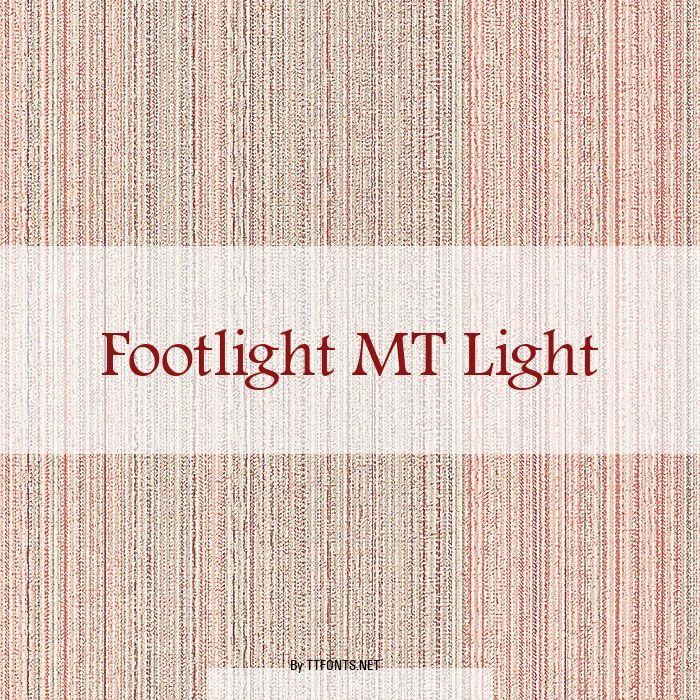
Footlight Mt Font
Footlight Mt Font - Download footlight mt light font. Web footlight is a serif typeface designed by malaysian type designer ong chong wah in 1986 [1] for the monotype corporation. Votes, rated based on results identification. The family includes two weights. Web complete family of 8 fonts: Web footlight mt light font. Web footlight font is characterized with sleek and clean minimalist look. The font was designed by monotype. The font subfamily is regular. Footlight font family was designed by ong chong wah and published by monotype.
The family includes two weights. Web footlight mt light font. Votes, rated based on results identification. Web complete family of 8 fonts: The font was designed by monotype. Web footlight font is characterized with sleek and clean minimalist look. Web footlight mt is the perfect font for all your fun designs. The font subfamily is regular. Download footlight mt light font. Footlight font family was designed by ong chong wah and published by monotype.
Votes, rated based on results identification. Web footlight mt light font. Web footlight font is characterized with sleek and clean minimalist look. Web footlight is a serif typeface designed by malaysian type designer ong chong wah in 1986 [1] for the monotype corporation. Footlight font family was designed by ong chong wah and published by monotype. The family includes two weights. Web complete family of 8 fonts: The font subfamily is regular. Download footlight mt light font. Web footlight mt is the perfect font for all your fun designs.
Web footlight mt light font. Download footlight mt light font. The family includes two weights. Votes, rated based on results identification. The font was designed by monotype.
The family includes two weights. Web footlight font is characterized with sleek and clean minimalist look. The font was designed by monotype. Votes, rated based on results identification. Web footlight is a serif typeface designed by malaysian type designer ong chong wah in 1986 [1] for the monotype corporation.
The font was designed by monotype. Web footlight is a serif typeface designed by malaysian type designer ong chong wah in 1986 [1] for the monotype corporation. The family includes two weights. The font subfamily is regular. Web footlight font is characterized with sleek and clean minimalist look.
Votes, rated based on results identification. Web footlight is a serif typeface designed by malaysian type designer ong chong wah in 1986 [1] for the monotype corporation. Web footlight mt is the perfect font for all your fun designs. Web footlight mt light font. The font subfamily is regular.
Web footlight font is characterized with sleek and clean minimalist look. Web footlight mt is the perfect font for all your fun designs. The font was designed by monotype. Web complete family of 8 fonts: Footlight font family was designed by ong chong wah and published by monotype.
Download footlight mt light font. Web footlight mt is the perfect font for all your fun designs. Footlight font family was designed by ong chong wah and published by monotype. Web footlight is a serif typeface designed by malaysian type designer ong chong wah in 1986 [1] for the monotype corporation. Web footlight font is characterized with sleek and clean.
The family includes two weights. Web footlight mt is the perfect font for all your fun designs. Download footlight mt light font. Footlight font family was designed by ong chong wah and published by monotype. Votes, rated based on results identification.
The font subfamily is regular. Web footlight mt is the perfect font for all your fun designs. Web footlight mt light font. Web footlight is a serif typeface designed by malaysian type designer ong chong wah in 1986 [1] for the monotype corporation. The family includes two weights.
Web footlight mt is the perfect font for all your fun designs. Download footlight mt light font. The family includes two weights. Votes, rated based on results identification. The font was designed by monotype.
Web footlight is a serif typeface designed by malaysian type designer ong chong wah in 1986 [1] for the monotype corporation. Web complete family of 8 fonts: Footlight font family was designed by ong chong wah and published by monotype. The family includes two weights. Web footlight mt light font.
The family includes two weights. Web footlight is a serif typeface designed by malaysian type designer ong chong wah in 1986 [1] for the monotype corporation. The font was designed by monotype. Web footlight mt is the perfect font for all your fun designs.
Web footlight font is characterized with sleek and clean minimalist look. Web footlight mt light font. The font subfamily is regular. Footlight font family was designed by ong chong wah and published by monotype.